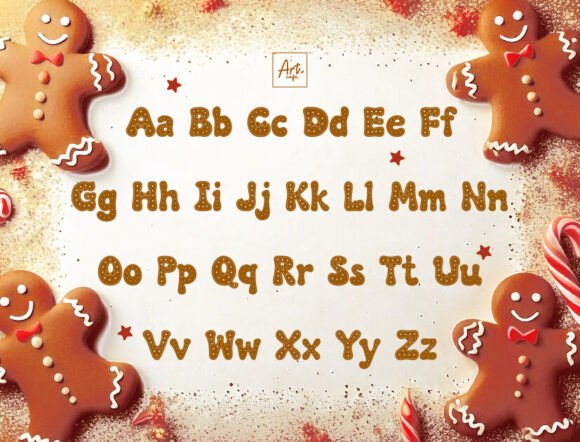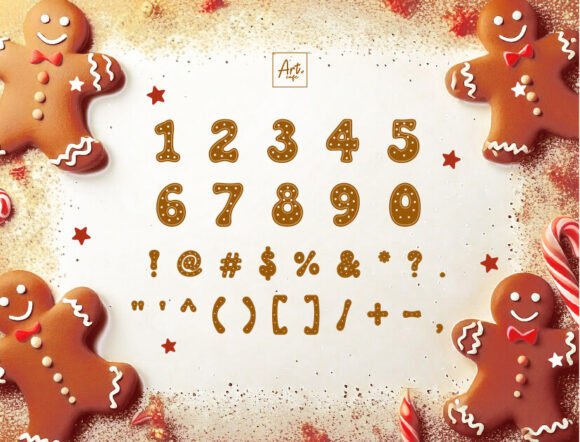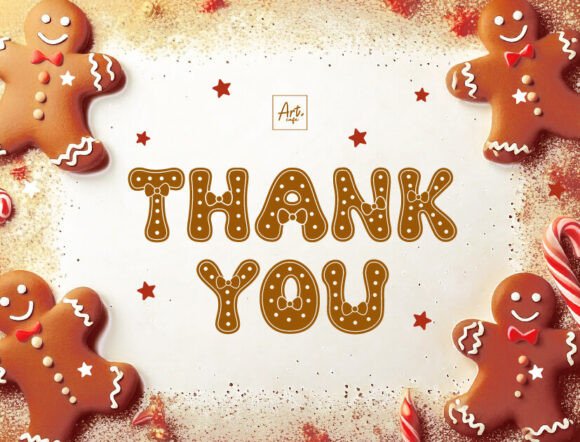
Gingerbread Man Font
Introducing Gingerbread Man, a creative and lively font that pulls inspiration from our favorite retro influences. The entire design is reminiscent of the enchanting world of freshly cooked Gingerbread cookies, perfectly embodied in the delightful dotted lines and captivating bow detail. Rising above simple aesthetics, Gingerbread Man is the quintessential festive design tool, encapsulating the very essence of Christmas celebrations. Furthermore, the font’s light-hearted nature lends itself generously to children’s projects. Whether it’s for holiday-themed messages or enchanting storybooks, Gingerbread Man is expertly crafted to infuse an essential warmth and joy into your memorable designs.